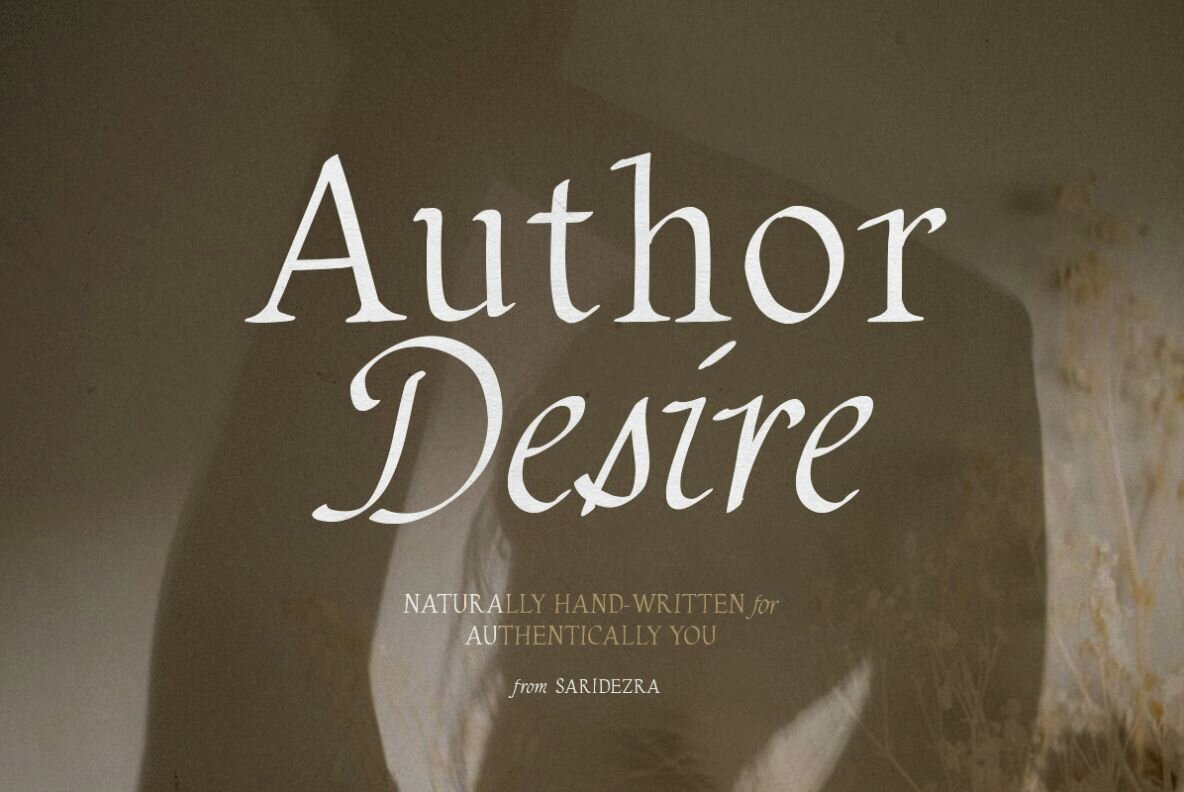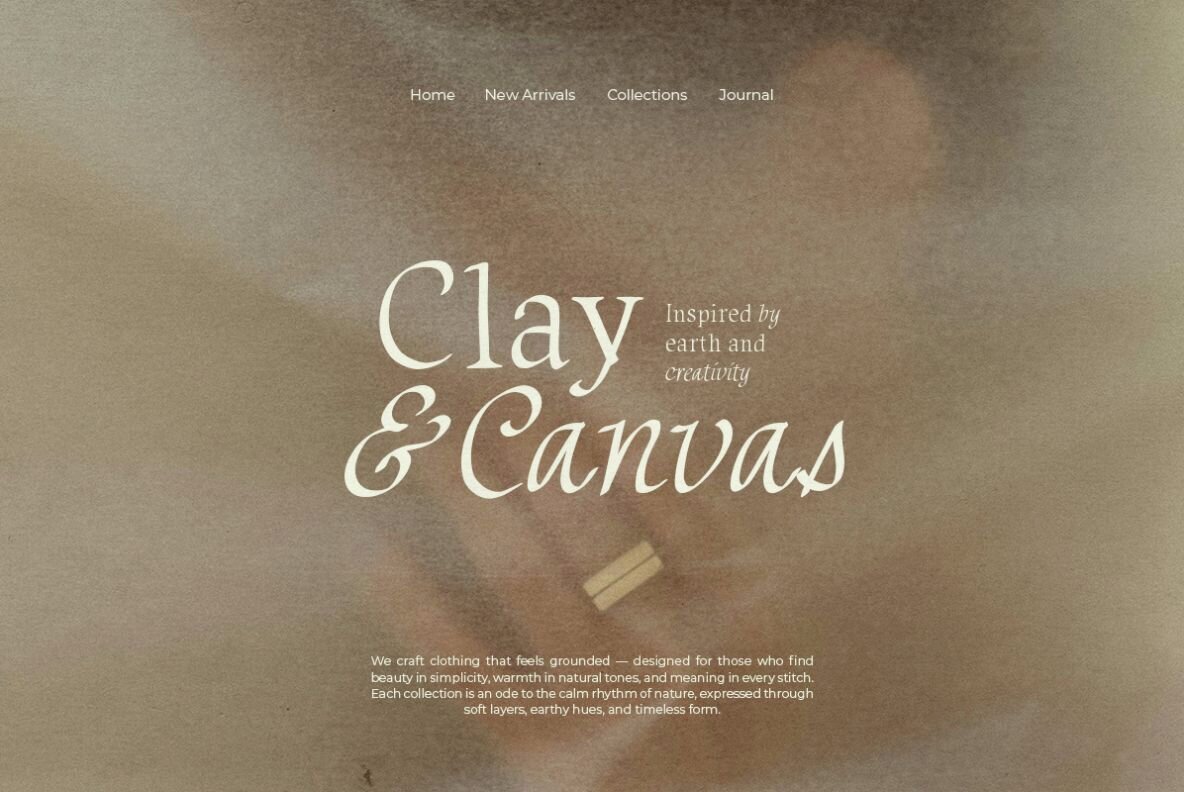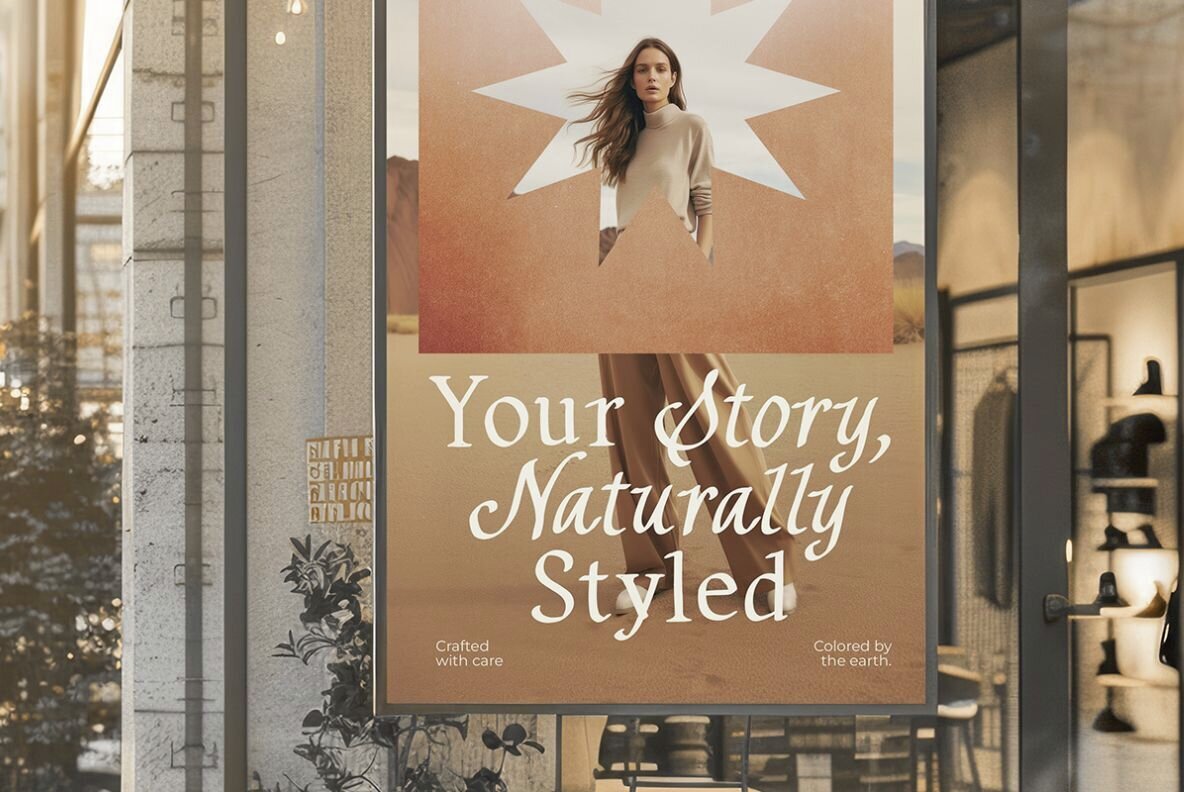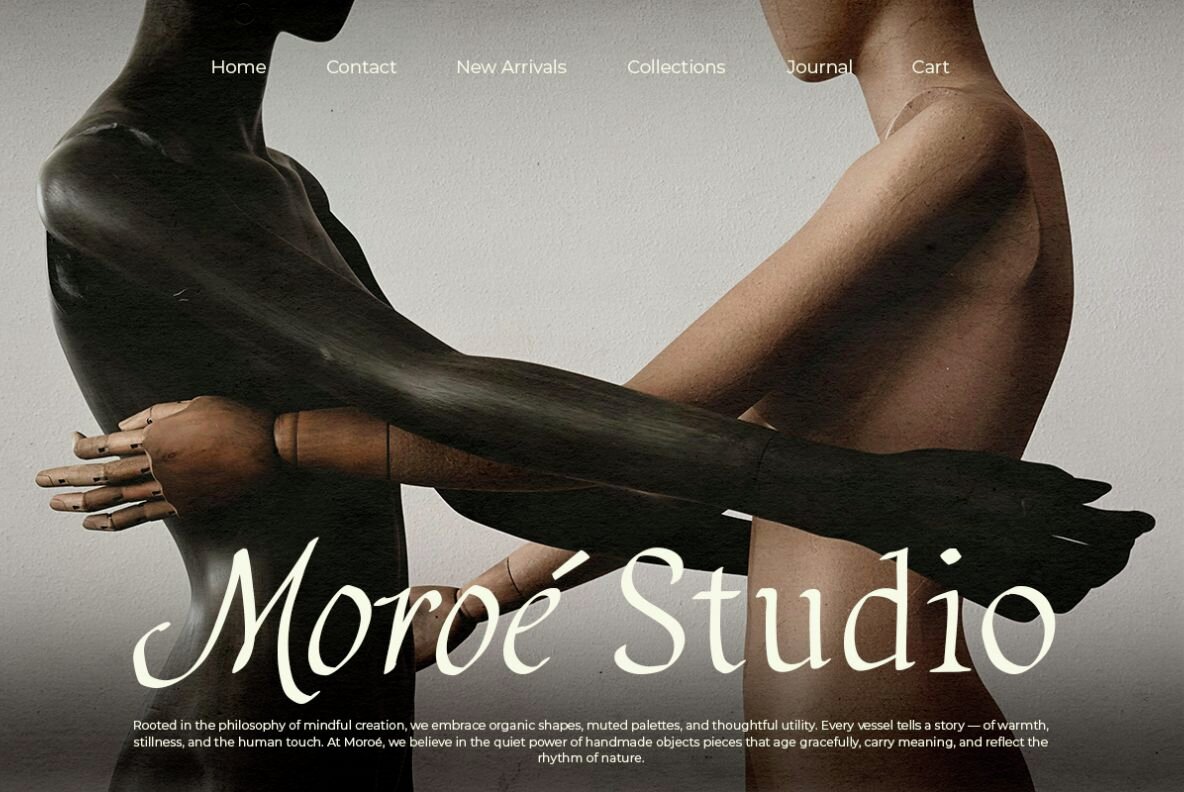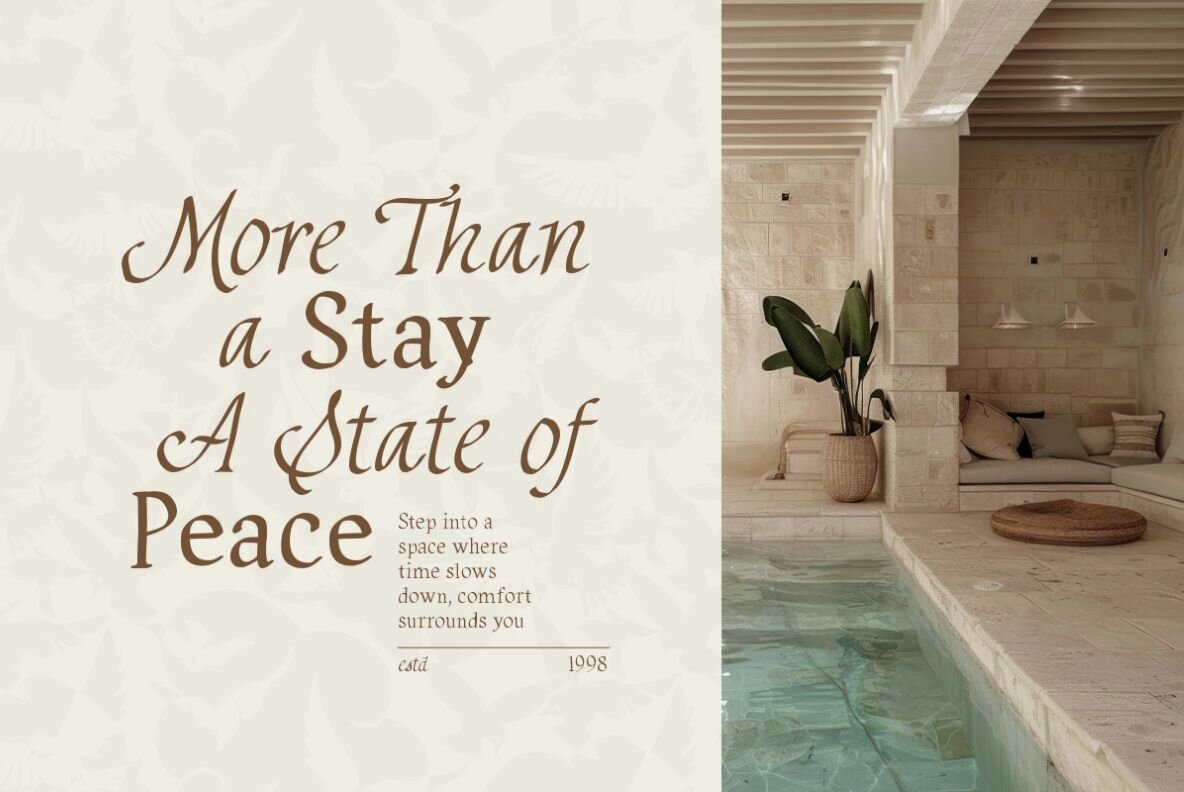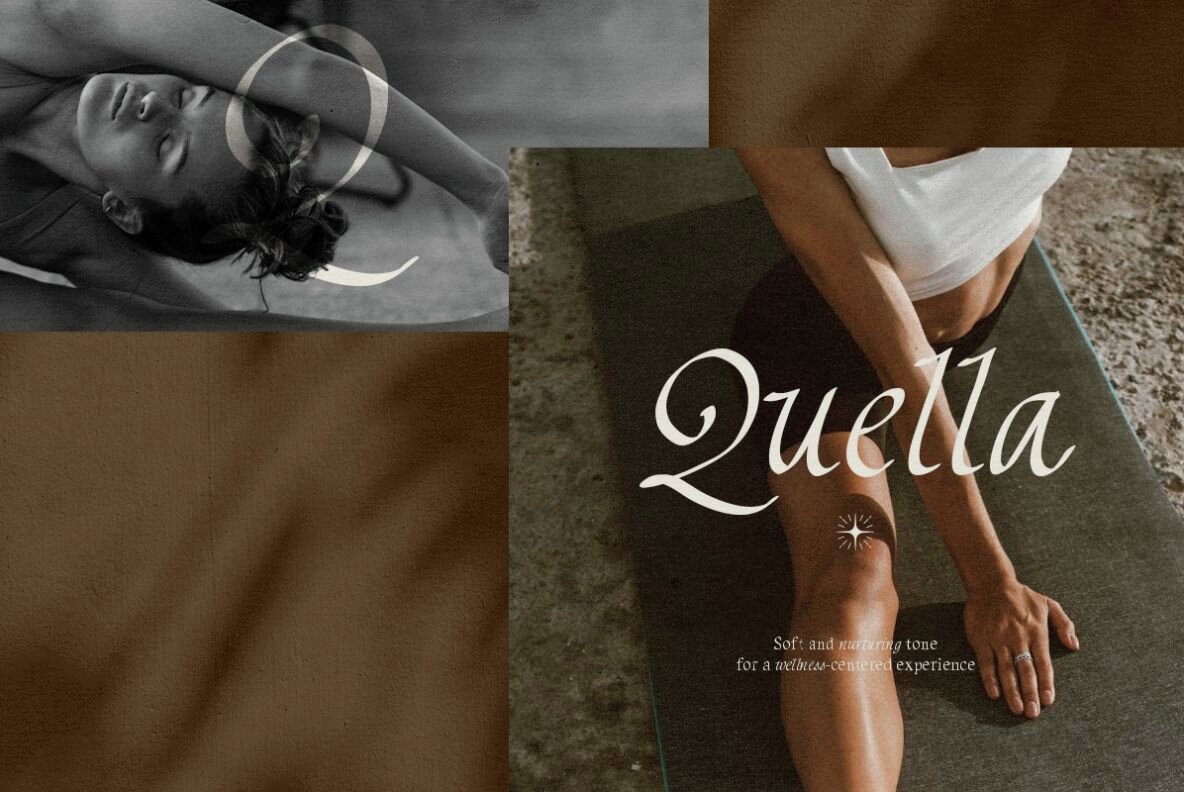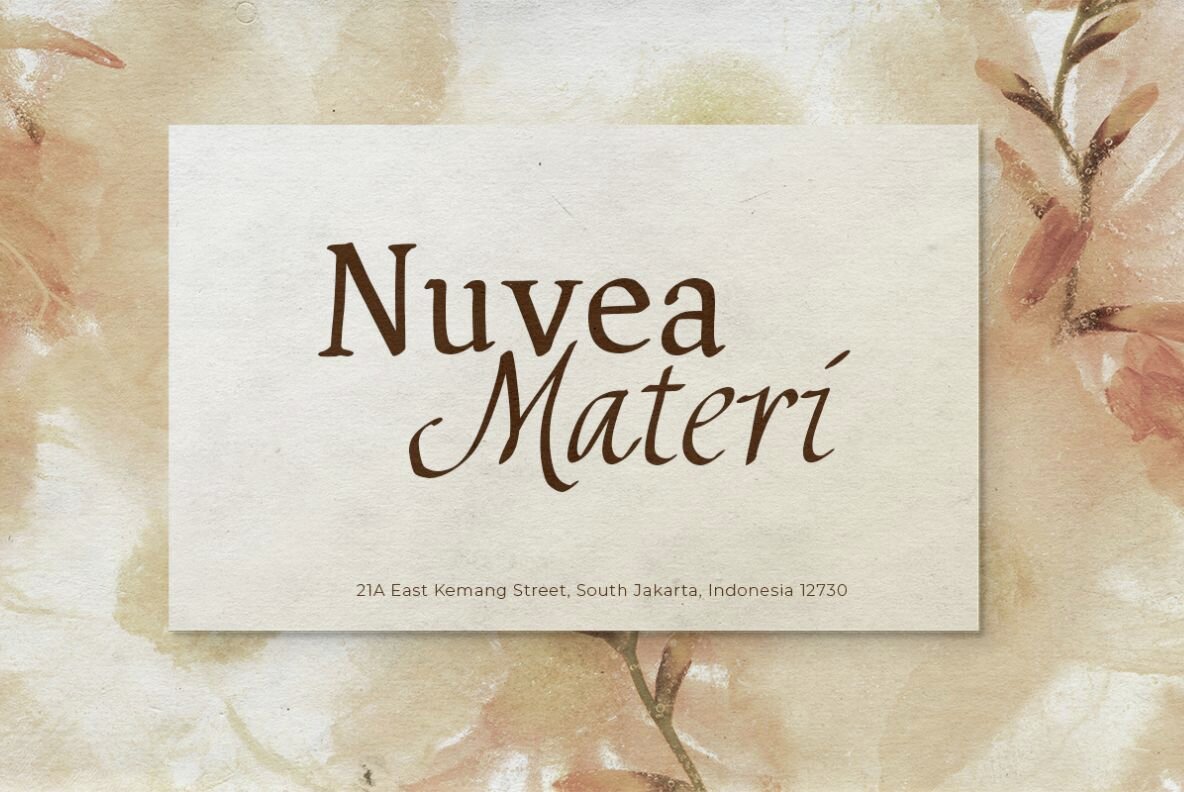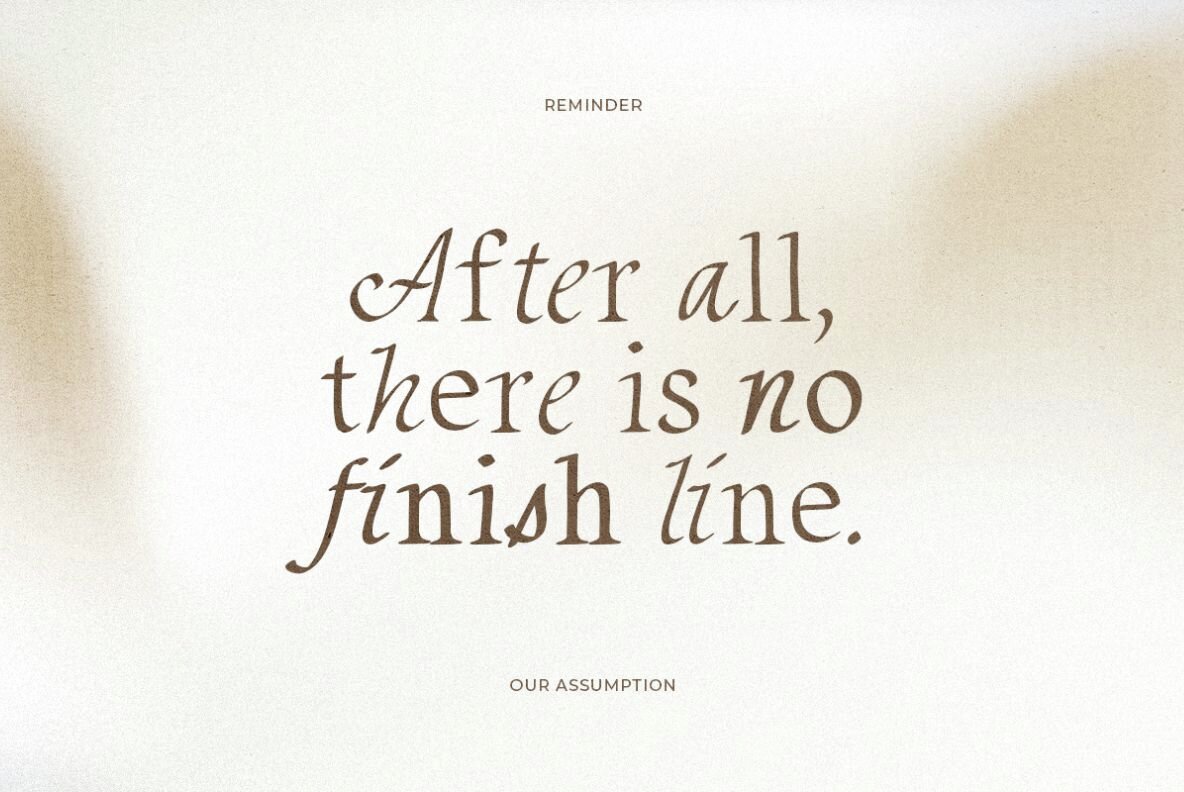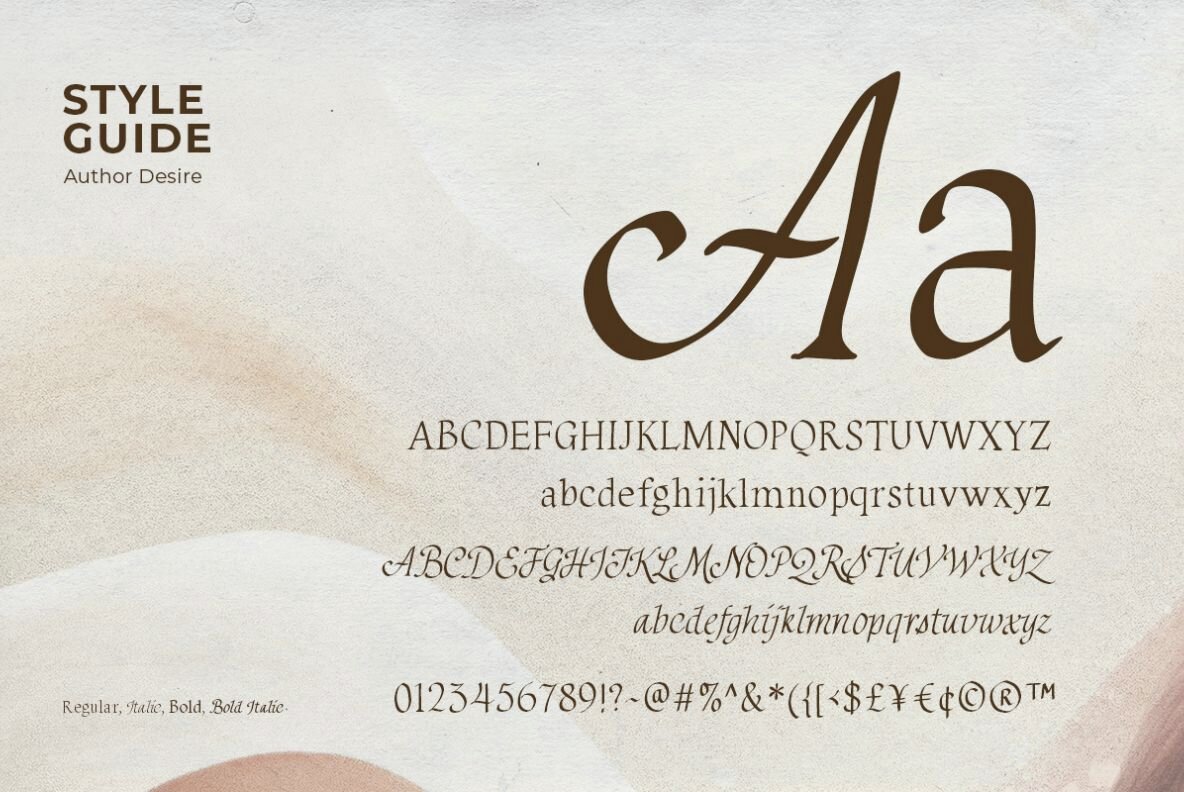
Author Desire Font
Author Desire is a captivating serif font family that channels a natural and vintage aesthetic. With four versatile styles—regular, italic, bold, and bold italic—this font provides ample options for your visually stunning, handcrafted projects. Perfectly suited for logotypes, wedding invitations, and any design seeking a touch of both old-world charm and modern sophistication. Author Desire seamlessly supports multiple languages, enhancing its versatility for global design needs.Embrace Timeless Elegance with Author Desire